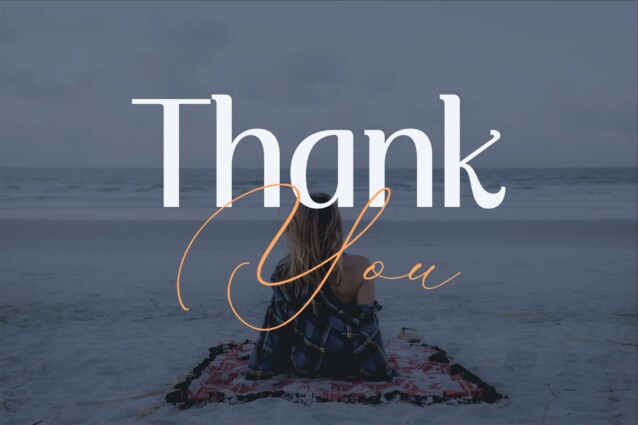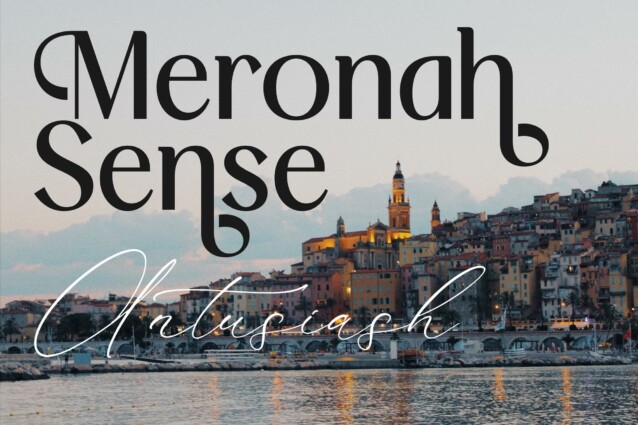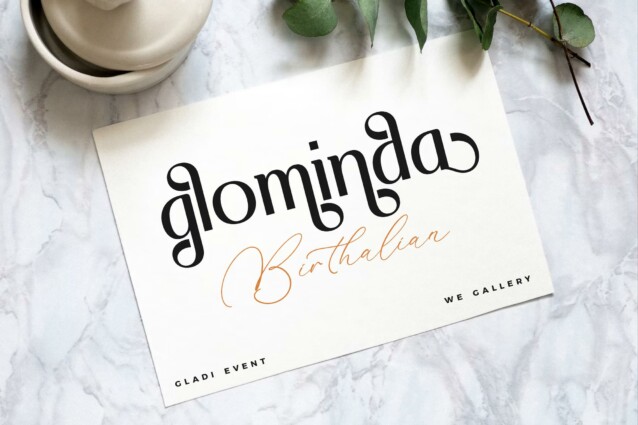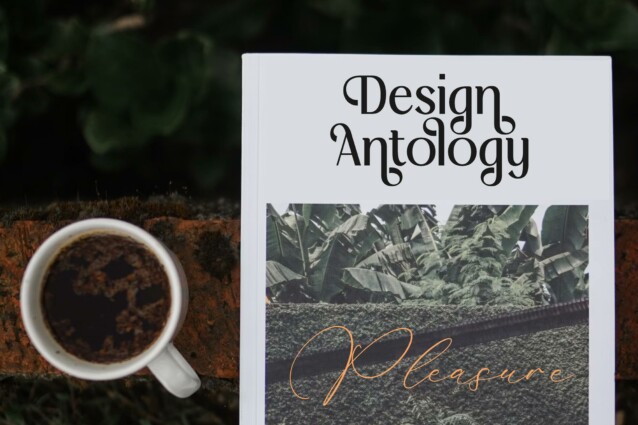
Rokuna Alenthush Font is a serif and script typeface that has own unique style & modern look. This typeface is perfect for an elegant & luxury logo, book or movie title design, fashion brand, magazine, clothes, lettering, quotes, and so much more.